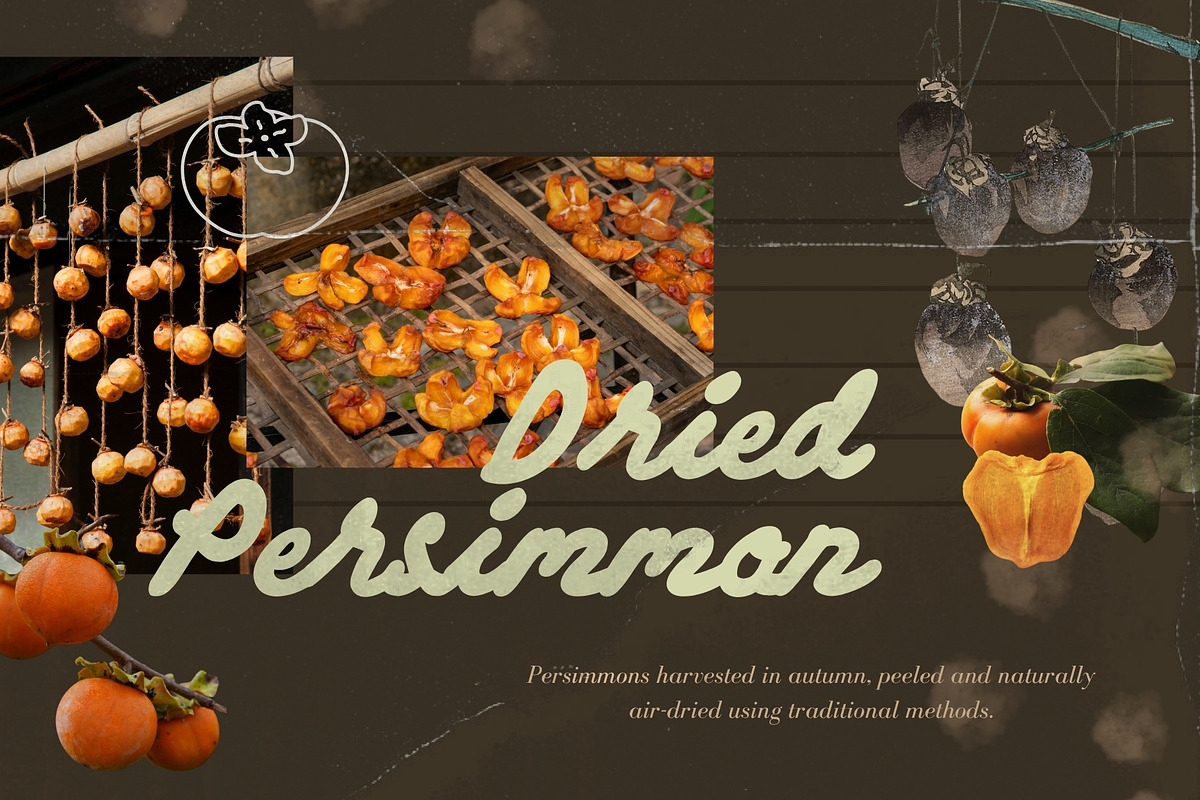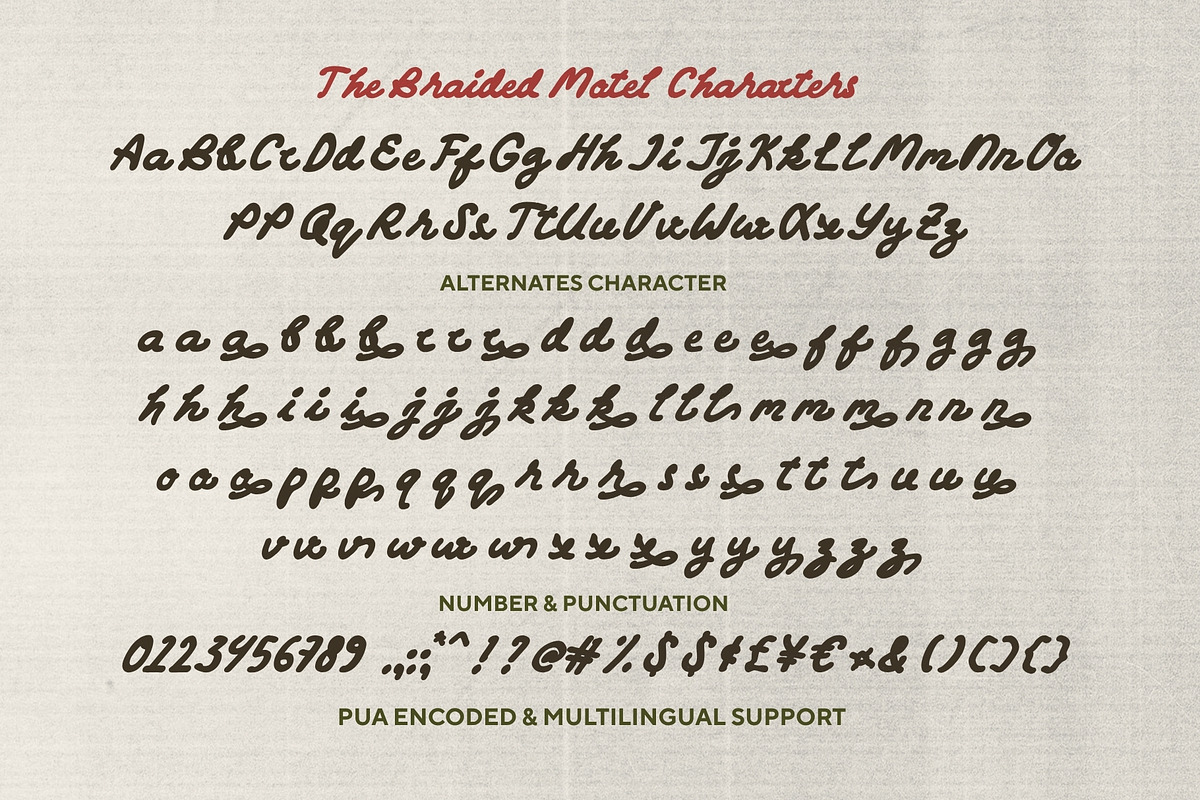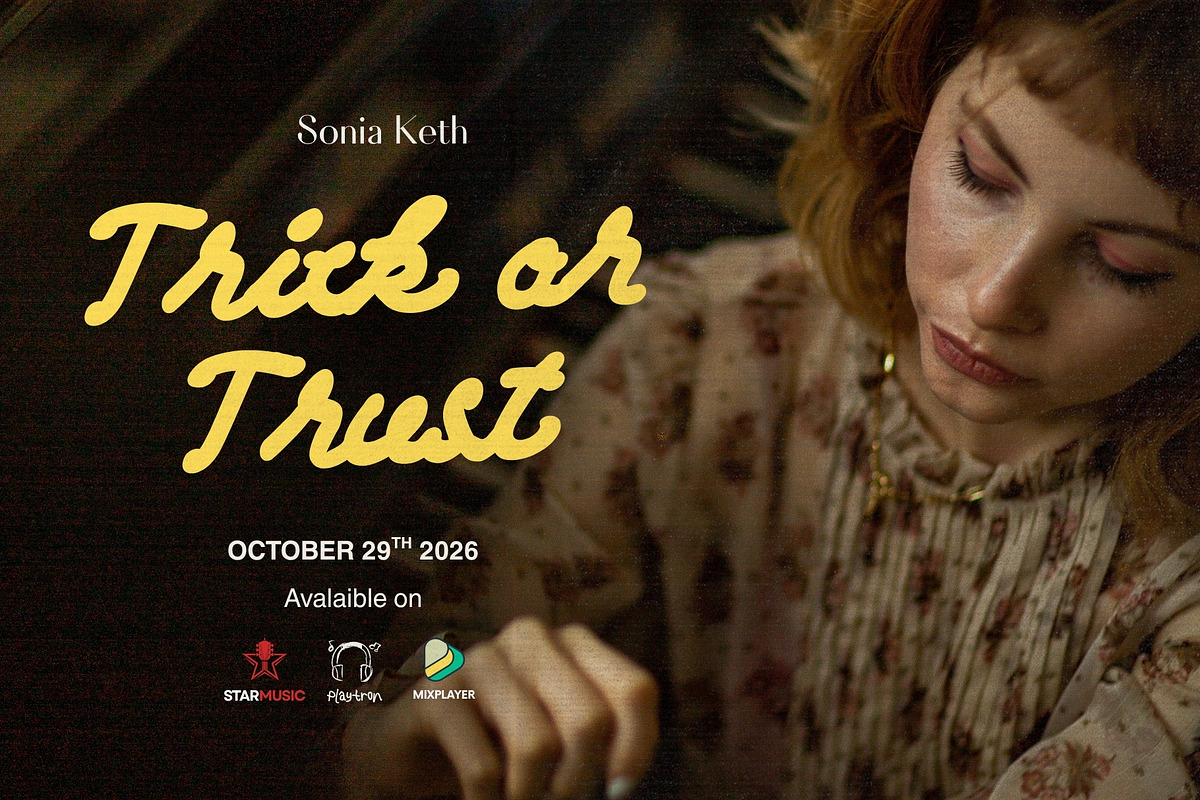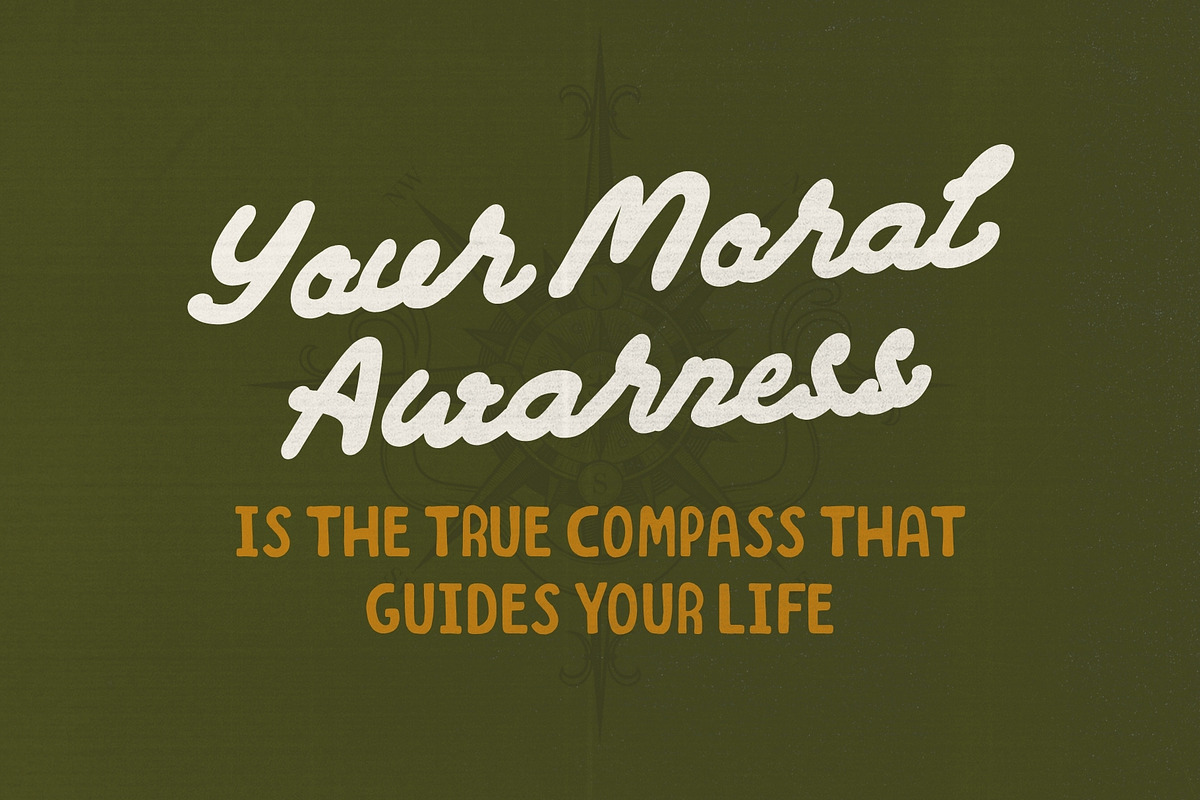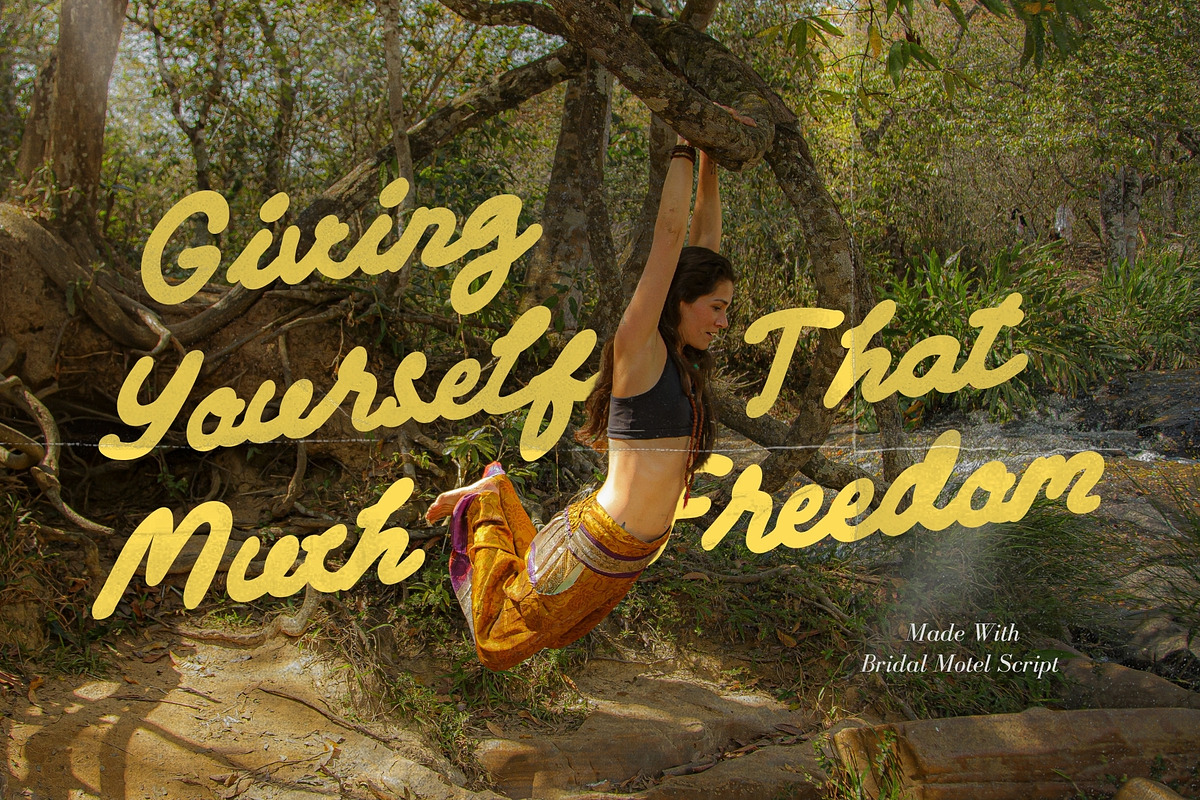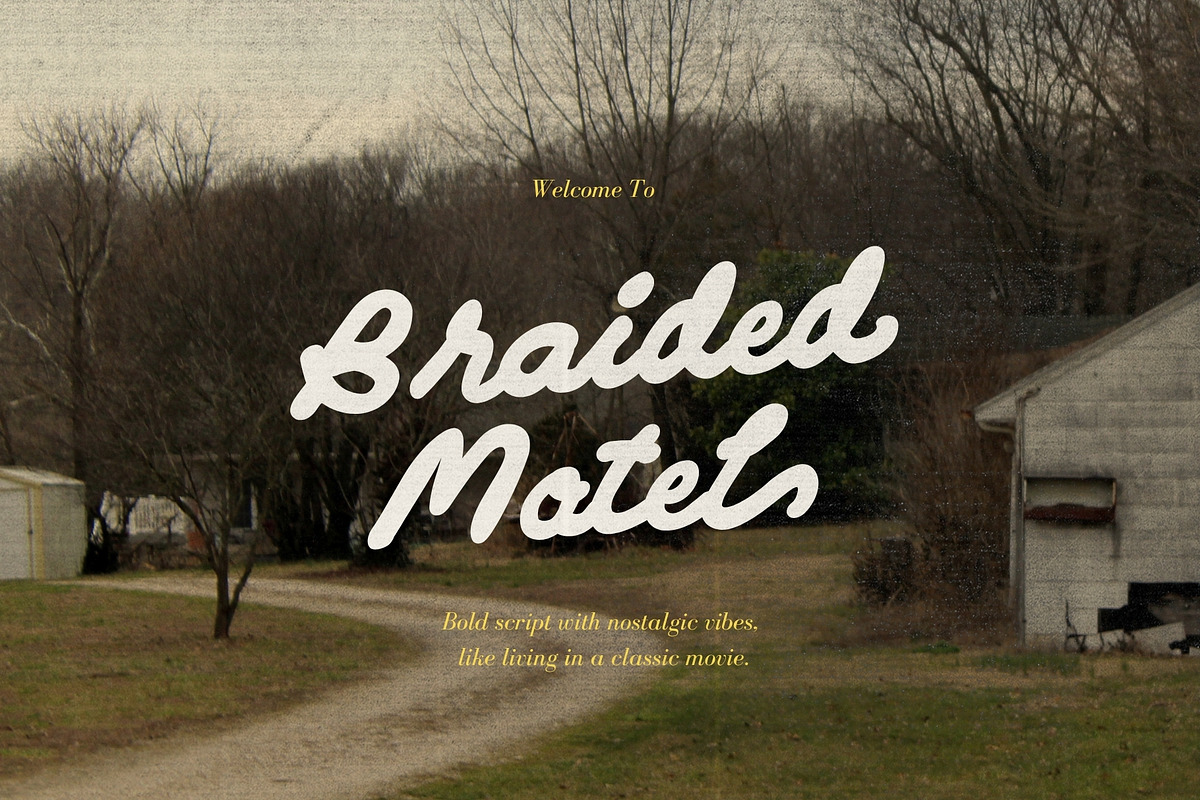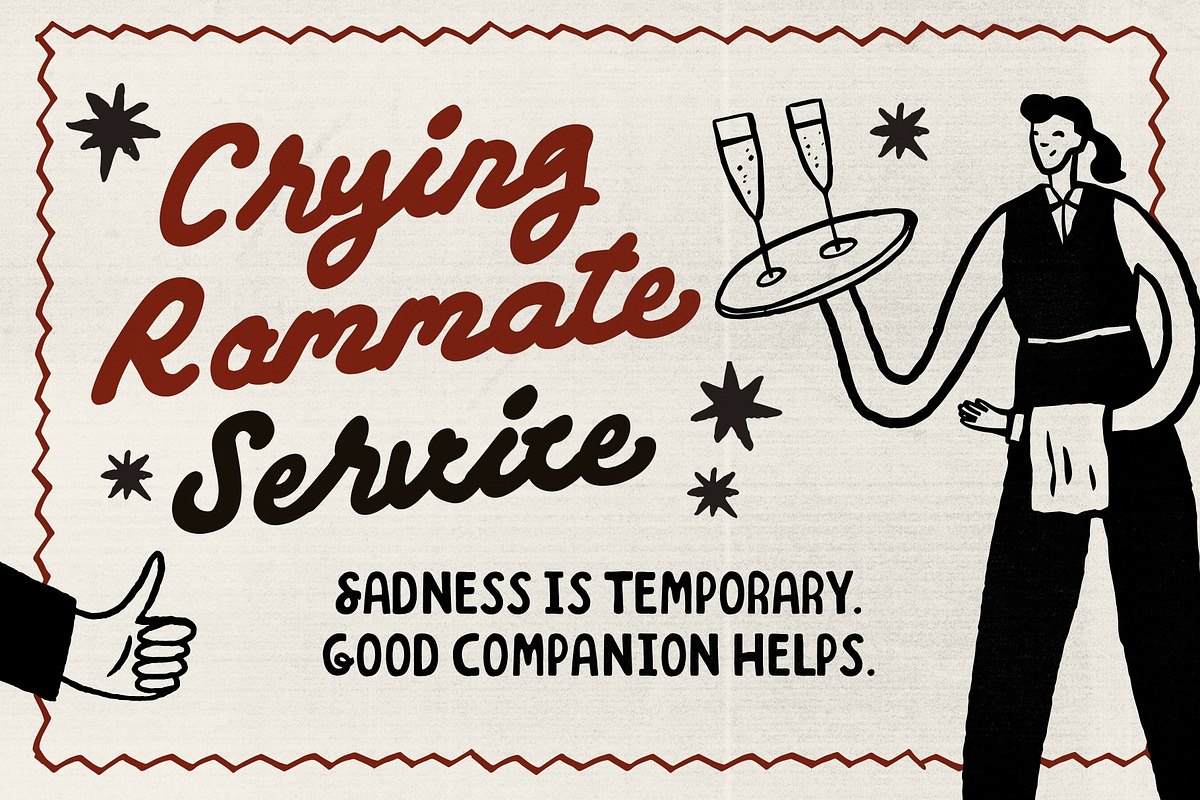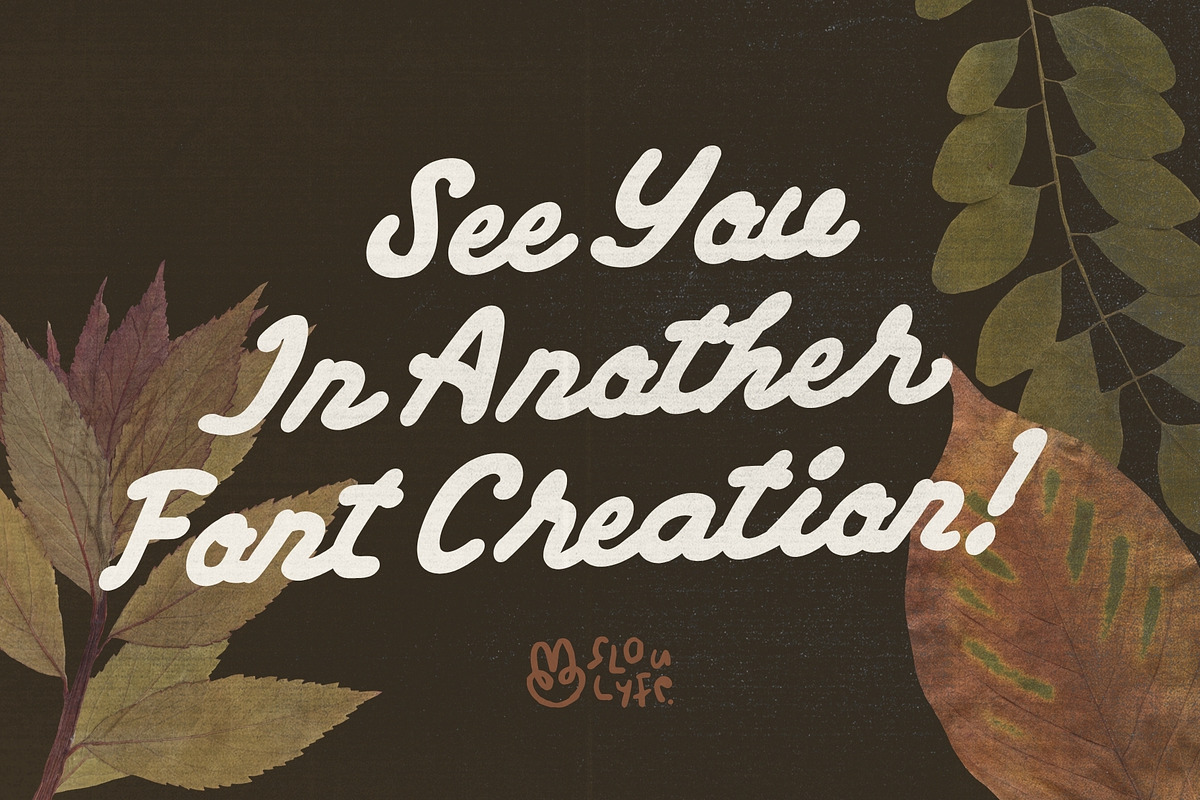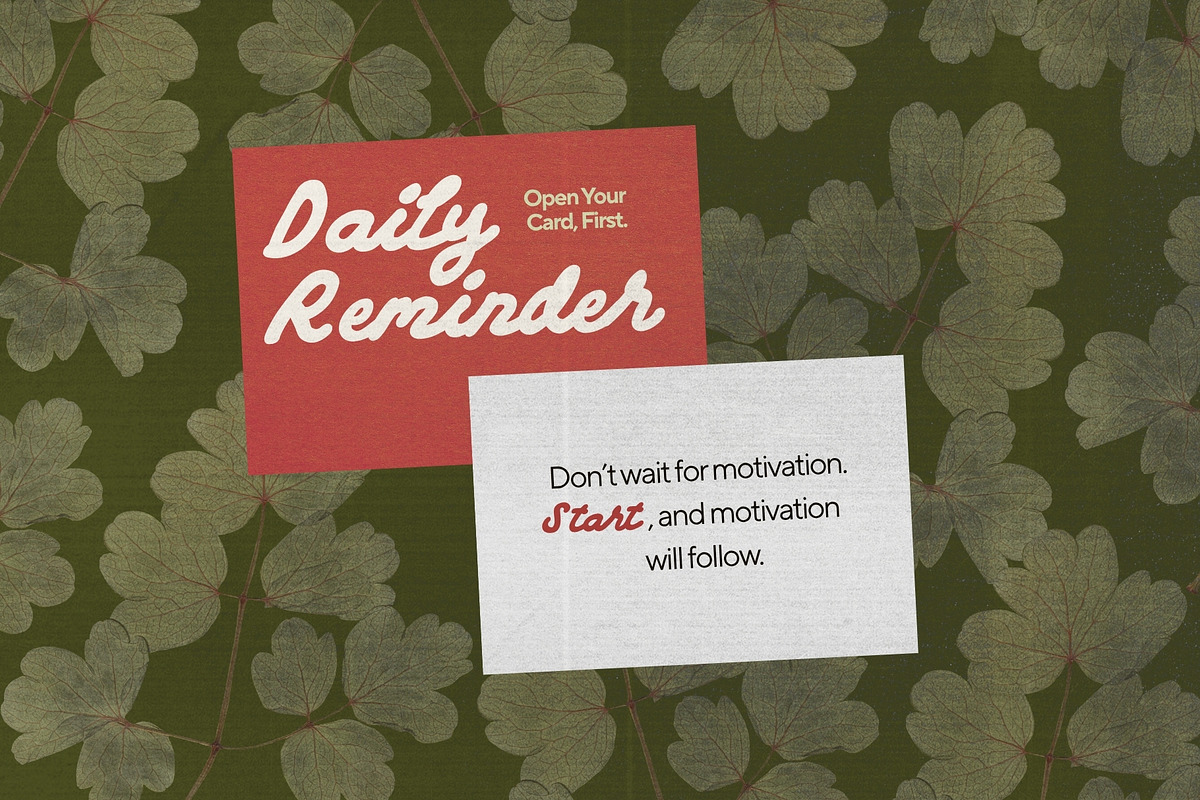
Braided Motel Movie Bold Script
Braided Motel is a bold retro script wrapped in the warmth of an old autumn movie—quiet roads, faded colors, golden afternoon light, and memories captured on film. Its chunky flowing letterforms and smooth hand-painted curves echo vintage motel signs and classic advertisements, carrying an easygoing charm that feels familiar and cinematic.